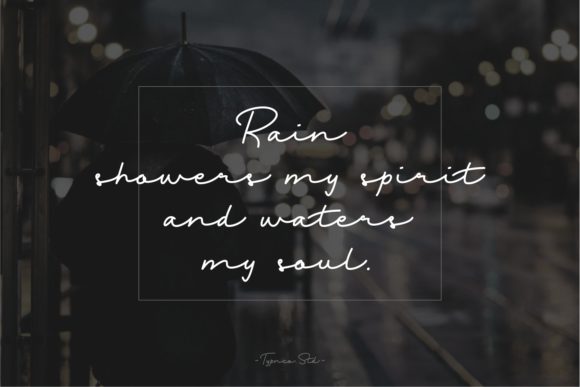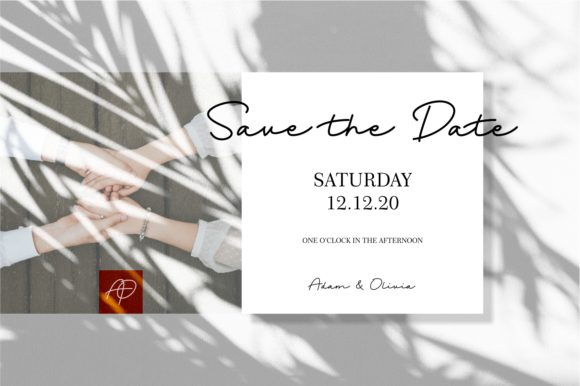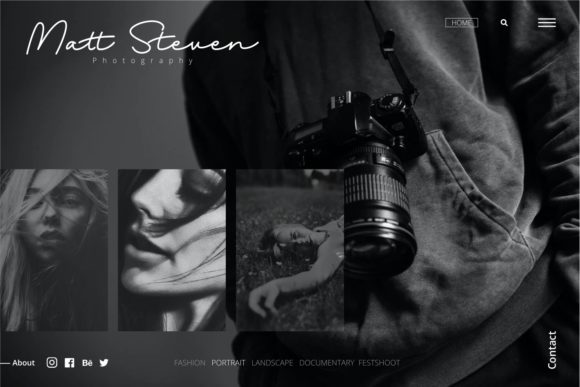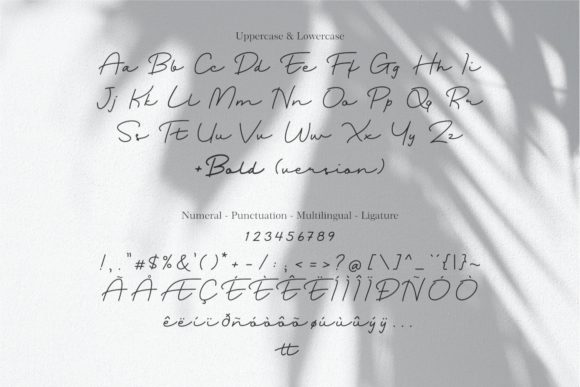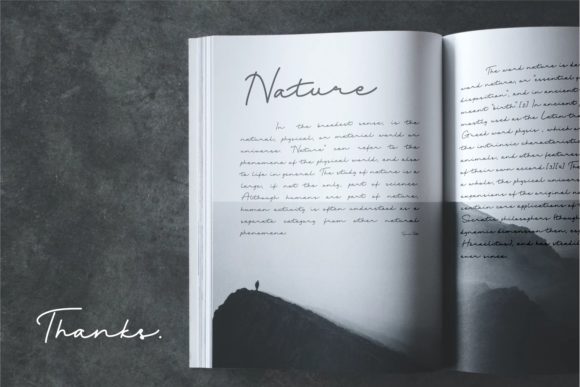
Introduction to Port Fairy Font
Have you ever found yourself staring at a blank canvas, searching for the perfect font to bring your creative project to life? For designers, the right font can be the difference between a mediocre design and a masterpiece. And that’s exactly what the Port Fairy Font offers – a stylish script font that exudes elegance, natural charm, and a touch of sophistication.
As a valuable design resource, the Port Fairy Font is perfect for personal branding, logo designs, wedding invitations, social media posts, and any project that requires a high-quality, handwritten touch. With its modern and fresh monoline signature style, this font is sure to captivate your audience and leave a lasting impression.
Key Features of Port Fairy Font
- High-quality design resource ideal for creative projects, offering a unique and elegant aesthetic.
- Characteristics include a sophisticated and vintage feel, making it suitable for a variety of design contexts.
Honest Review: Port Fairy Font
As a designer, I’m always on the lookout for high-quality design resources to elevate my creative projects. The Port Fairy Font has caught my attention, and I’m excited to share my honest review with you.
What works well: ✨ The font is a beautiful, hand-drawn script that adds a touch of elegance to any design. The transparent background makes it easy to use on any background image or color. The font is also free to download, which is a huge plus for designers on a budget.
- Beautiful, hand-drawn script design
However, there are a few limitations: ⚠️ The font is only available in a single style, which may limit its versatility for certain design projects. Additionally, the font is not compatible with all operating systems, which may cause issues for designers working on Mac or Linux.
Overall, I’m impressed with the Port Fairy Font, but I wish it had more styles and compatibility options. If you’re looking for a beautiful, high-quality font for a specific design project, the Port Fairy Font is definitely worth checking out.
Tips for Getting the Most Out of the Port Fairy Font
For the best results, use the Port Fairy Font on a transparent background to create a clean and modern look. You can also experiment with different font sizes and styles to add depth and interest to your design.
The Port Fairy Font is ideal for use in logos, branding, and marketing materials. It’s also a great choice for creating graphics for social media, websites, and other online platforms.